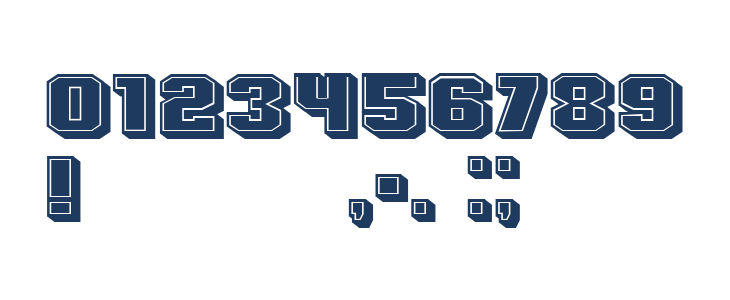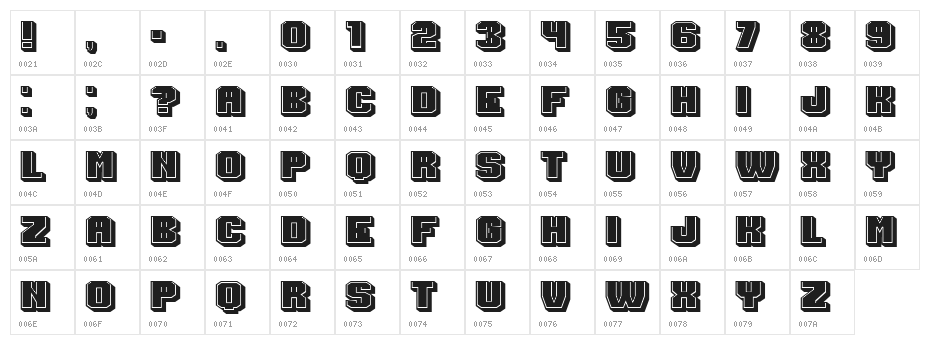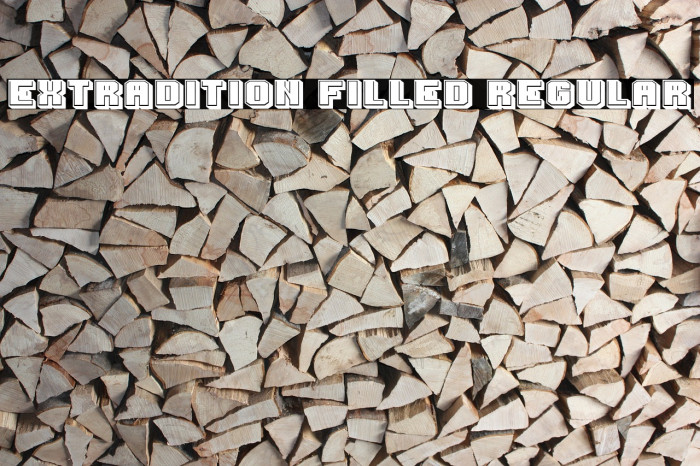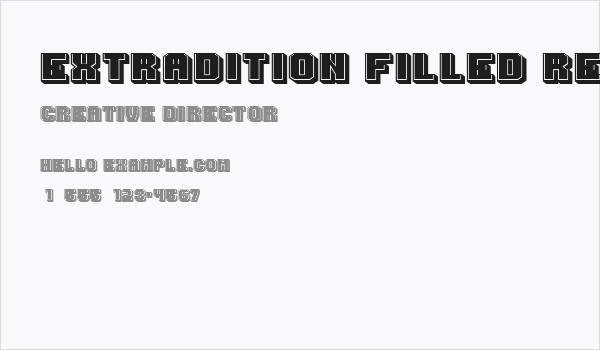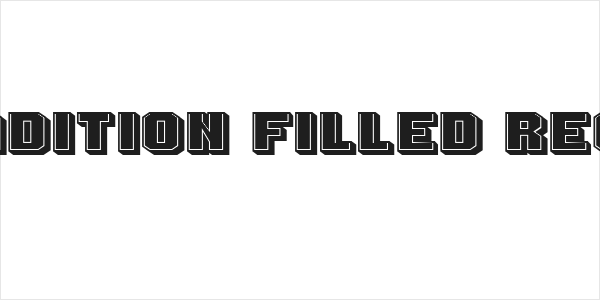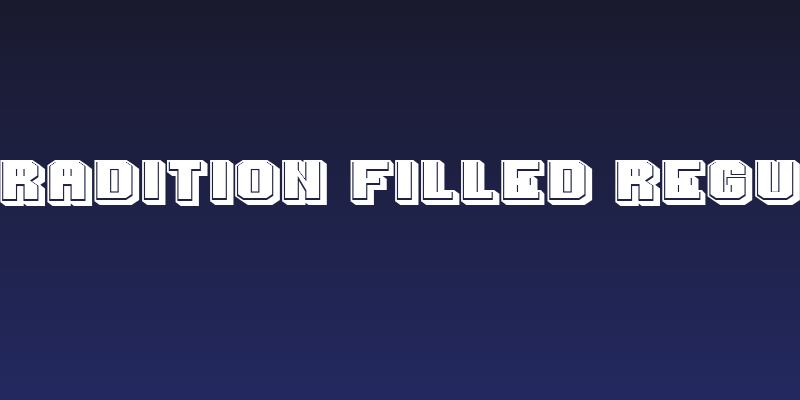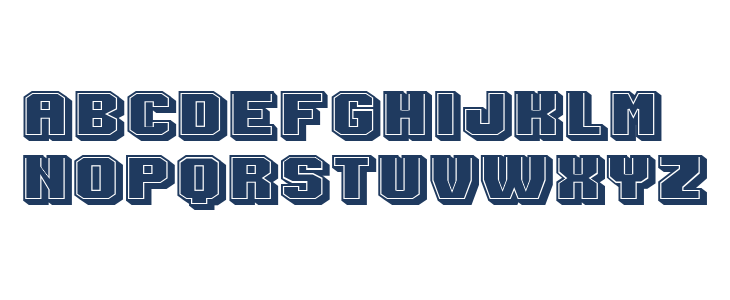
Extradition Filled Regular Font
Extradition Filled Regular Description
This font features a bold, geometric style with a strong presence. The characters are outlined with a thick border, giving them a three-dimensional effect. The design is consistent across uppercase letters, numbers, and punctuation, maintaining a uniform appearance. The font's structure is blocky and robust, making it highly visible and impactful. It is suitable for designs that require a strong visual statement, such as posters, banners, and headlines. The spacing between characters is normal, ensuring readability while maintaining its bold aesthetic.
| Proposed Projects | Ideal for posters, banners, headlines, and any design requiring a strong visual impact. |